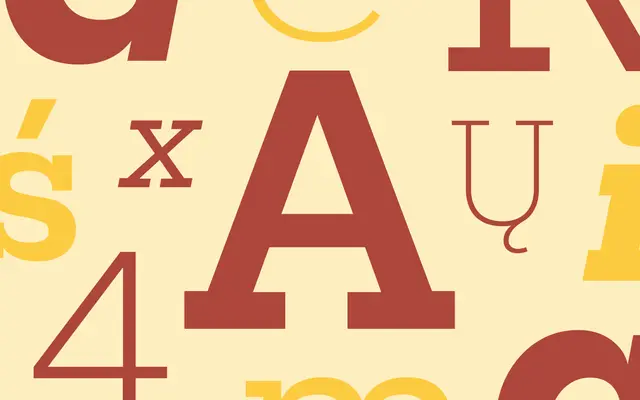
Mokoko
Dalton Maag · Naima Ben Ayed
Mokoko specimen from Dalton Maag
A contemporary geometric slab serif by Naima Ben Ayed, moving from clean and understated to bold and quirky along its axes.
A geometric slab serif by Naima Ben Ayed, built around open round forms, rectangular slabs and circular counters. The variable font runs Weight from Hairline to Black with oblique italics, and a flamboyant alternate Q sits alongside ff and ft ligatures for moments of personality. Holds up across branding, packaging and editorial systems that want a confident industrial slab without losing warmth.
Dalton Maag describe Mokoko as a contemporary geometric slab serif with Weight and Italic variable font axes, transitioning along its axes from clean and understated to bold and quirky.